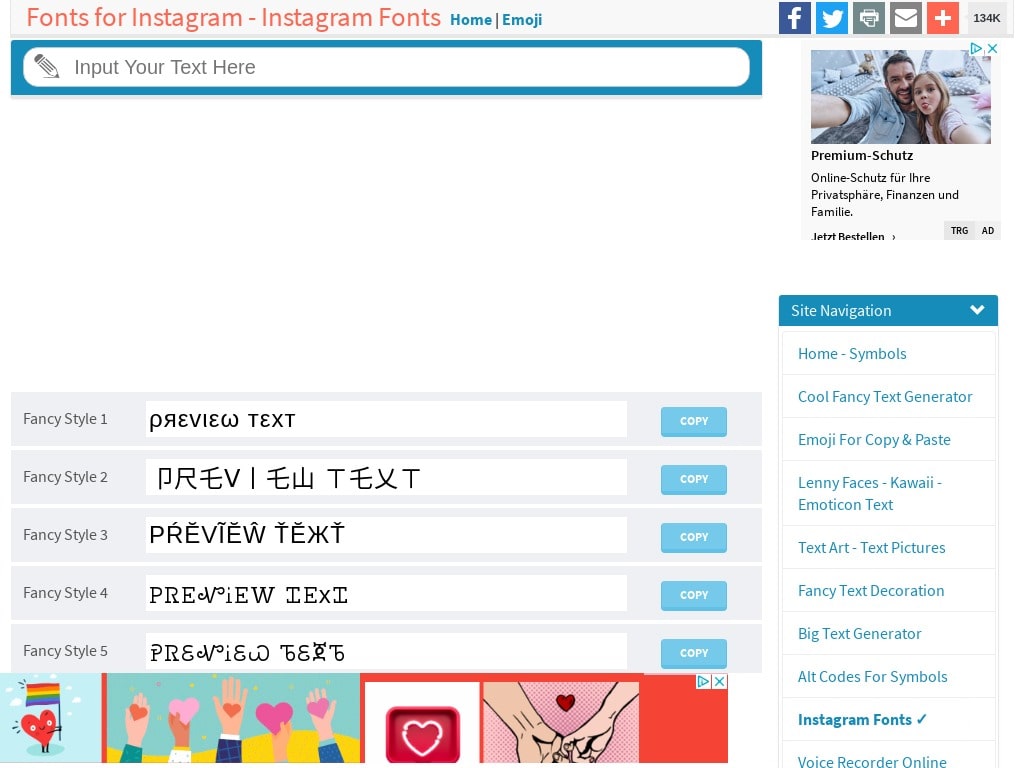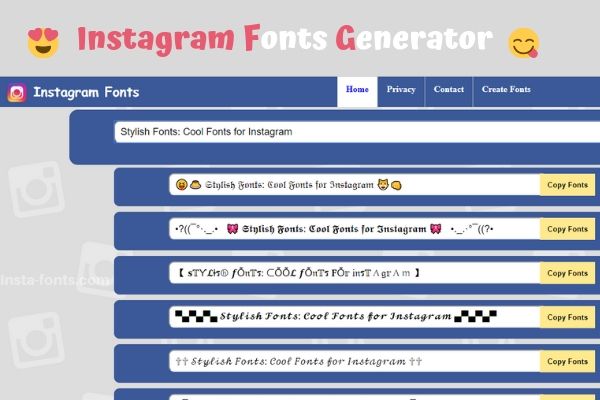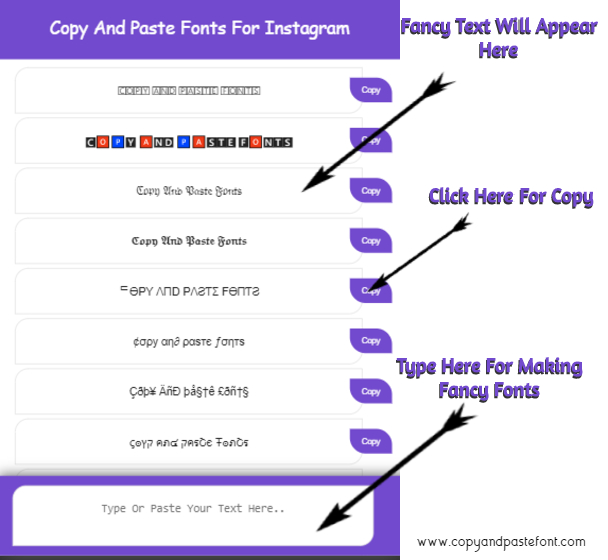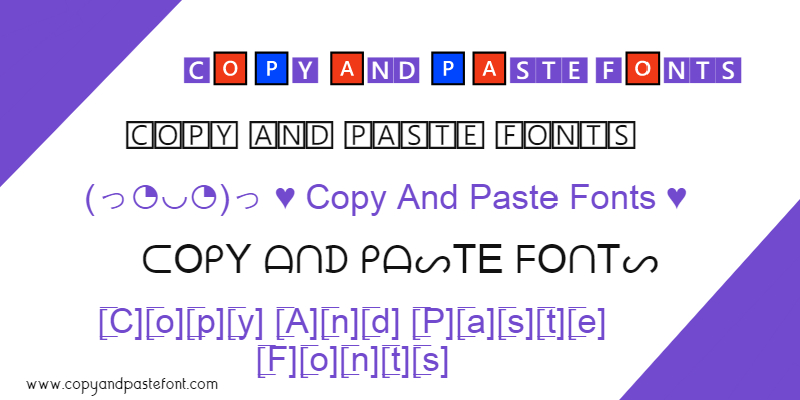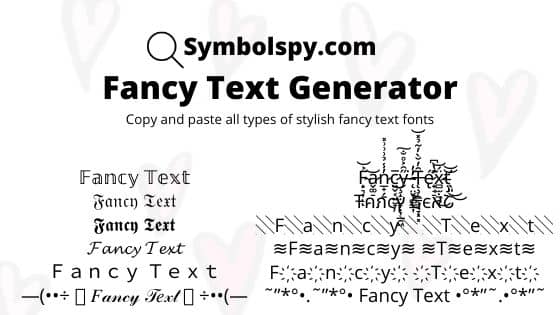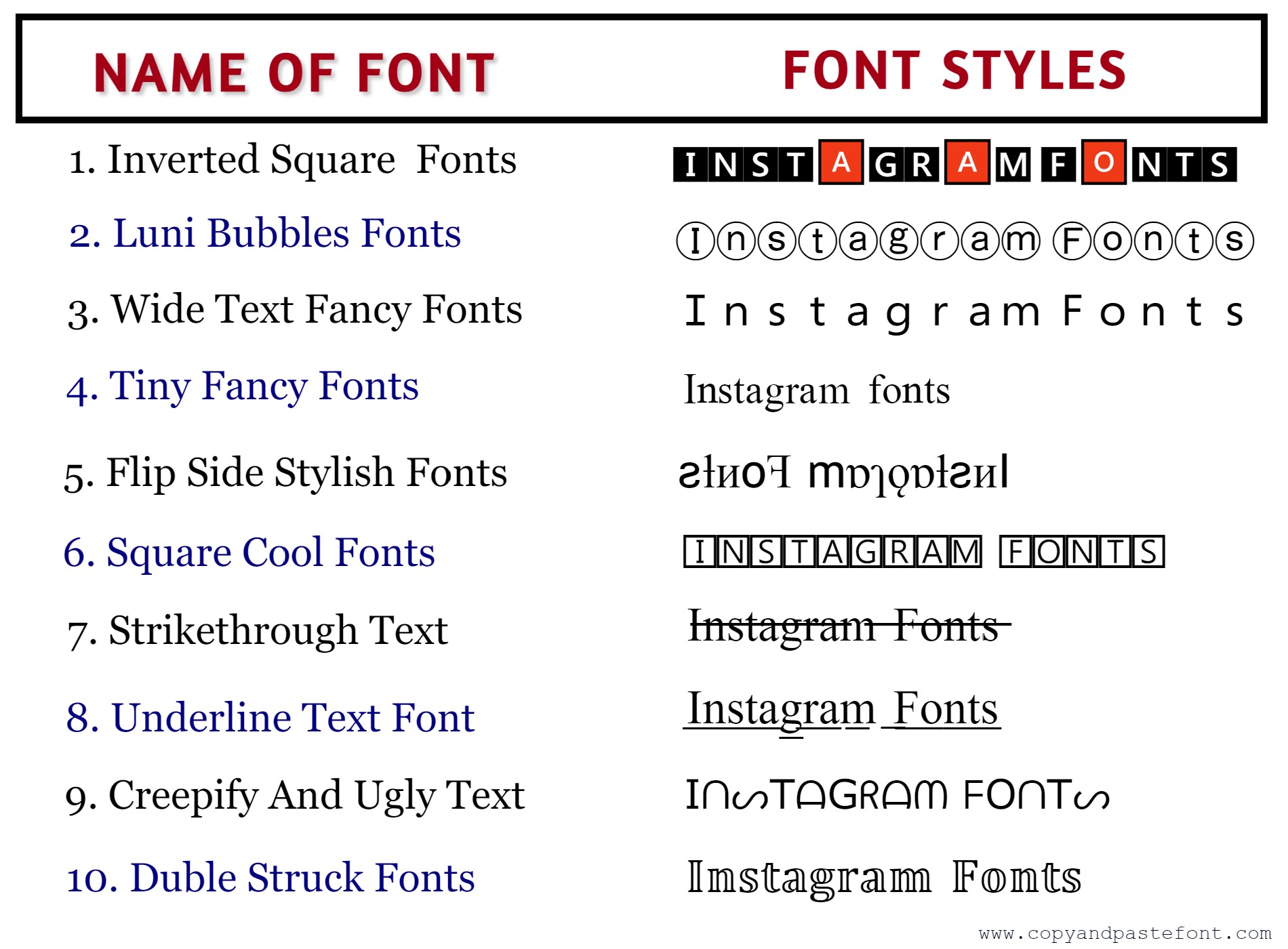
Click a copy button. You could use it to generate a fancy Agario name yep weird text in agario is probably generated using a fancy text converter similar to this to generate a creative-looking instagram facebook tumblr or twitter.
The curse generator adds symbols on top beneath and in the middle of your text.
Calligraphy font generator copy and paste free. Neon font edgy fonts panton font blackjack font gaelic font. HOW DOES FONTALIC WORK. All fonts are categorized and can be saved for quick reference and comparison.
Text with special computer letters and symbols kind of like emoji. After generating your fancy text symbols you can copy and paste the fonts to most websites and text processors. Font generator will convert your text letters using calligraphy font.
Text with extraordinary PC letters and images sort of like emoticon. Who can use Calligraphy Letters Generator and where. Snap a duplicate catch.
Lucida Calligraphy Free Font. It is exciting and convenient as that converts a default computer text into an unique eye-catching typography in the blink of an eye. Handwritten and personal letters.
Paste it where you want and enjoy it. If you are searching for the perfect font online then you came to. Other copy paste fonts are also available.
It will work practically anyplace on the web it works all over the place. As I mentioned earlier the display of calligraphy requires a specific font you can download the image for editing and use. You can customize your experience with live font previews.
Page 1 of 3. Glue it as plain content. This style can end up looking very similar to hand-lettered fonts but the difference is that calligraphy is written and not drawn.
Lucida Handwriting New Font Family Download Free For Desktop Webfont. Fontalic is the ultimate Copy and Paste Font Text Generator Machine. Its going to work pretty much anywhere online - works almost everywhere - its just text.
It can be used to add a unique and different touch to your social media posts such as those. Modern calligraphy font from 1001fonts free for commerical if in doubt you can go to this link for copyright font generator is for preview use only. Modern calligraphy typefaces differ from traditional calligraphy in that they do not adhere to specific lettering rules.
Cursed Font Generator Tattoo Fonts - Fonts Rack. You will see fonts below. It sits just an amalgamation of standard characters intermixed along with the subscript and superscript areas.
Copy any font you want to use. FontGeneratorOnline will make your images stick out. Calligraphy Font Generator 𝓬𝓸𝓹𝔂 𝖆𝖓𝖉 𝓹𝓪𝓼𝓽𝓮 Free Calligraphy is gotten from Greek signifying delightful composition.
Calligraphy or the craft of extravagant composing has a great many years in. The fancy calligraphy font style generator can be used by different kinds of people for a large number of purposes. Type the text you want in Calligraphy Generator.
Textual style generator will change over your content letters utilizing Calligraphy Font Generator. Font generator online converts a normal text to different free cool fonts styles such as tattoo fonts calligraphy fonts web script fonts etc Fonts for Instagram or other social media are becoming more and more popular. Looking to download safe free latest software now.
For each type of font you can generate a separate generated calligraphy just click the edit link then enter your text choose the color and size and then generate the calligraphy. 636 Lucida Calligraphy Satin Font Lucida Calligraphy Lettering Alphabet Lucida Calligraphy Font. The results are shown in the image.
Free Lucida Calligraphy Web Fonts. Our handwritten fonts are an opportunity to address personal and loving issues. How copy and paste calligraphy generator works Font changer can convert text letters and symbols of your message into alternative text.
Paste it as plain text. Free font generator online allow you to copy and paste cool fonts cool font font generator online converts a normal text to different free cool fonts styles such as tattoo fonts calligraphy fonts web script fonts etc fonts for instagram or other social media are becoming more and more popular. Cool Fancy Font Generator Copy Paste 80 Styles Generate cool cursive and calligraphy fonts with our free tool for Instagram WhatsApp And Facebook Home.